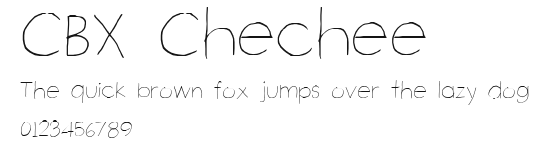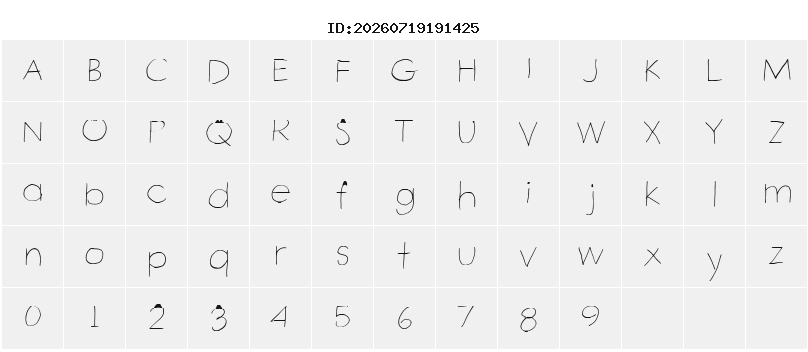
CBX-Chechee.ttf is a modern, elegant sans-serif font designed for ultimate readability and visual harmony. Perfect for branding, headlines, web design, and print materials.